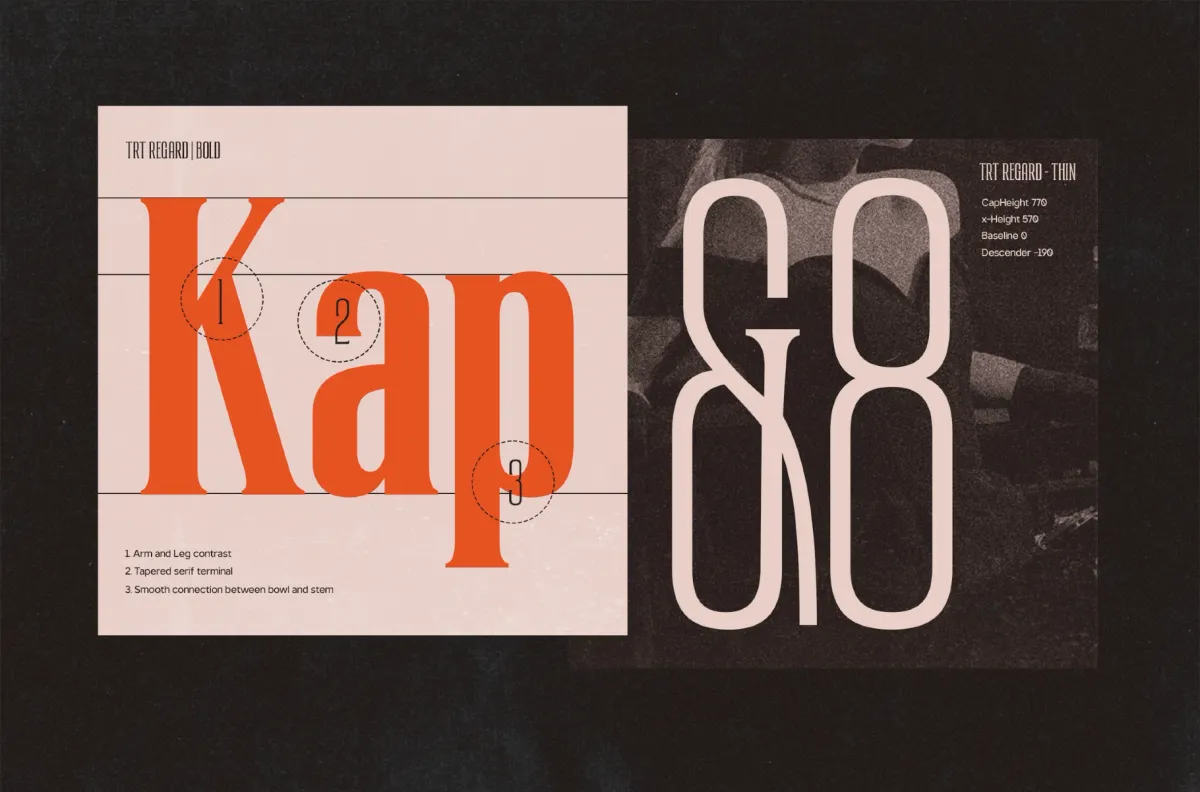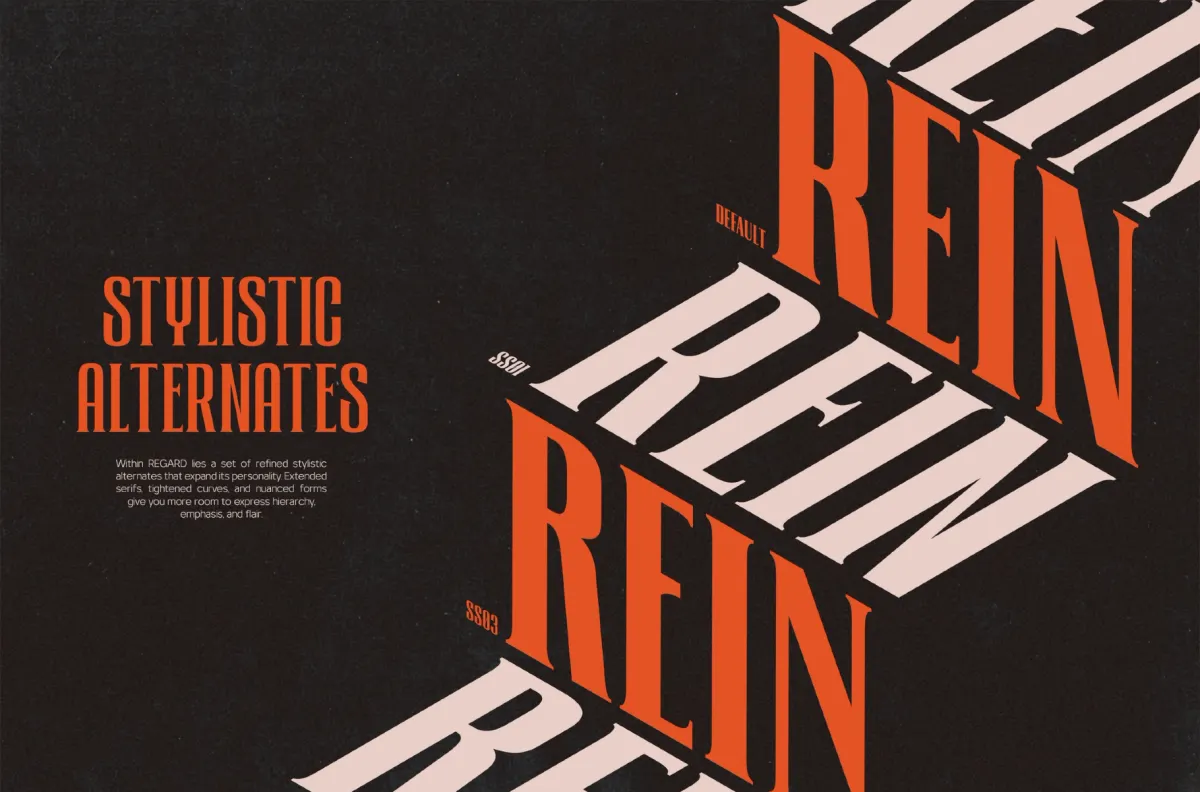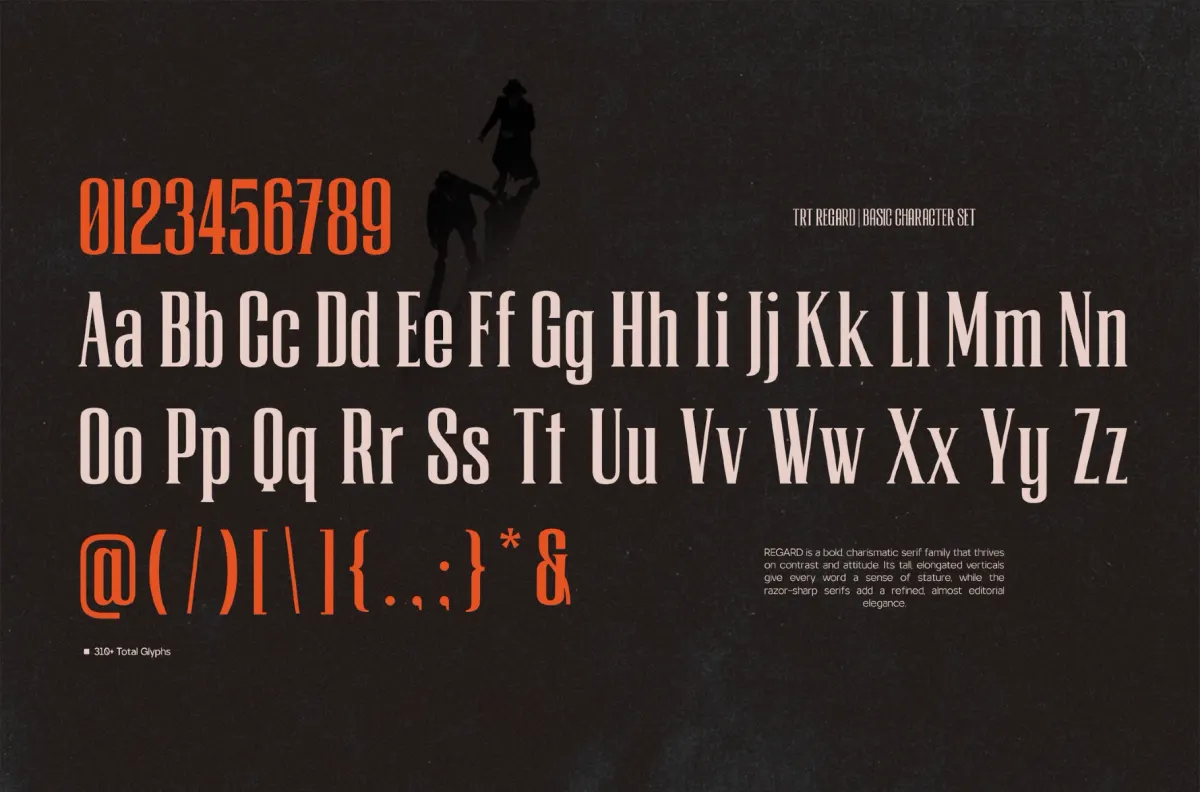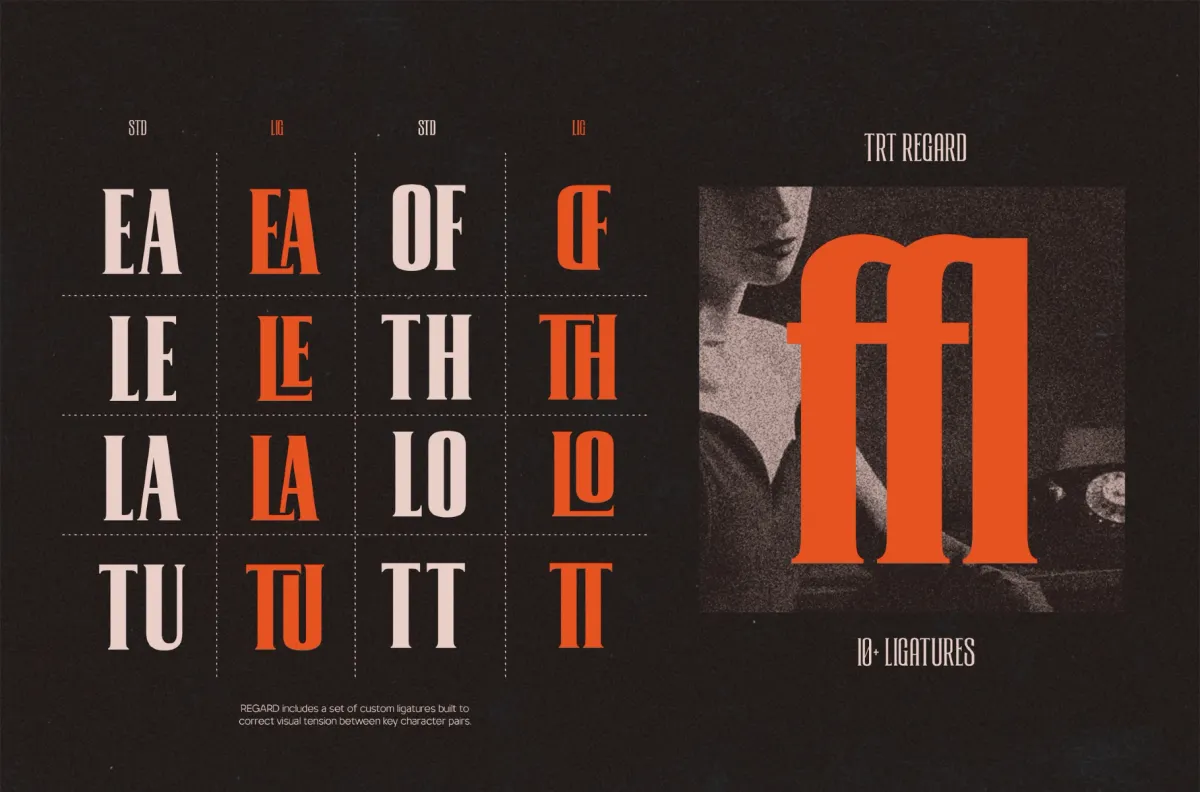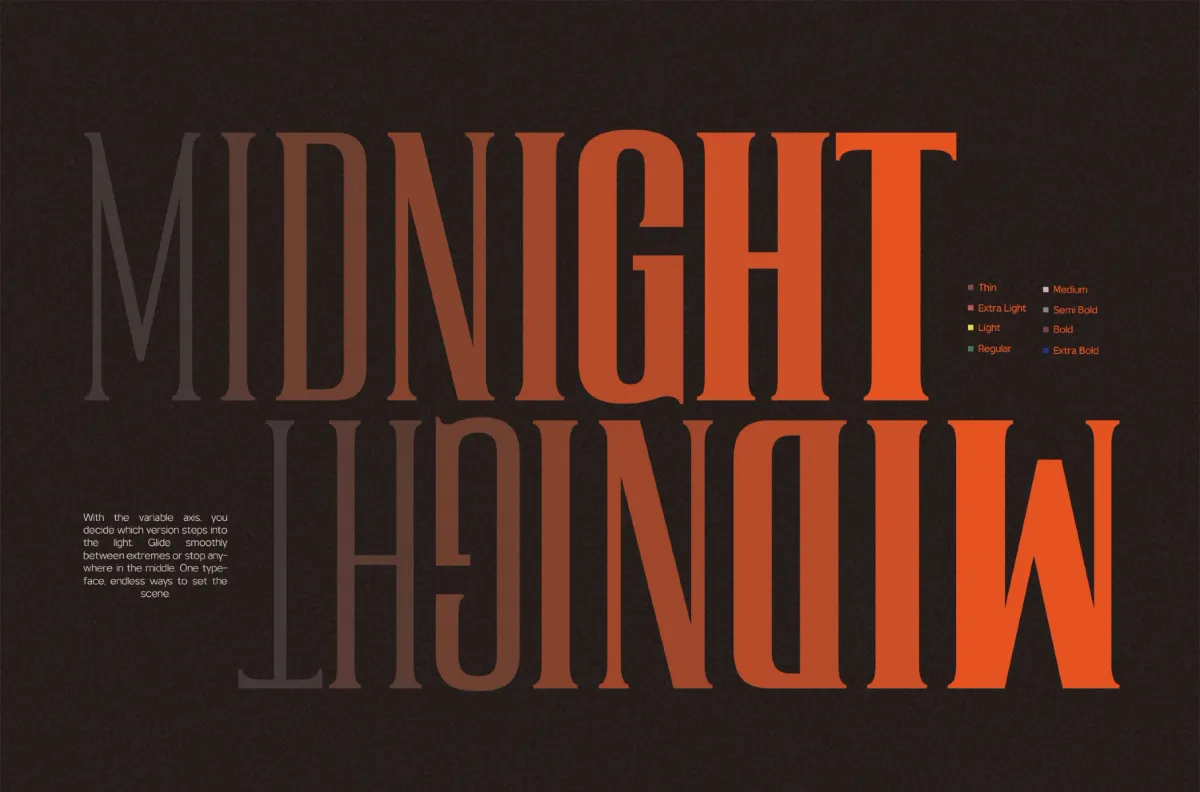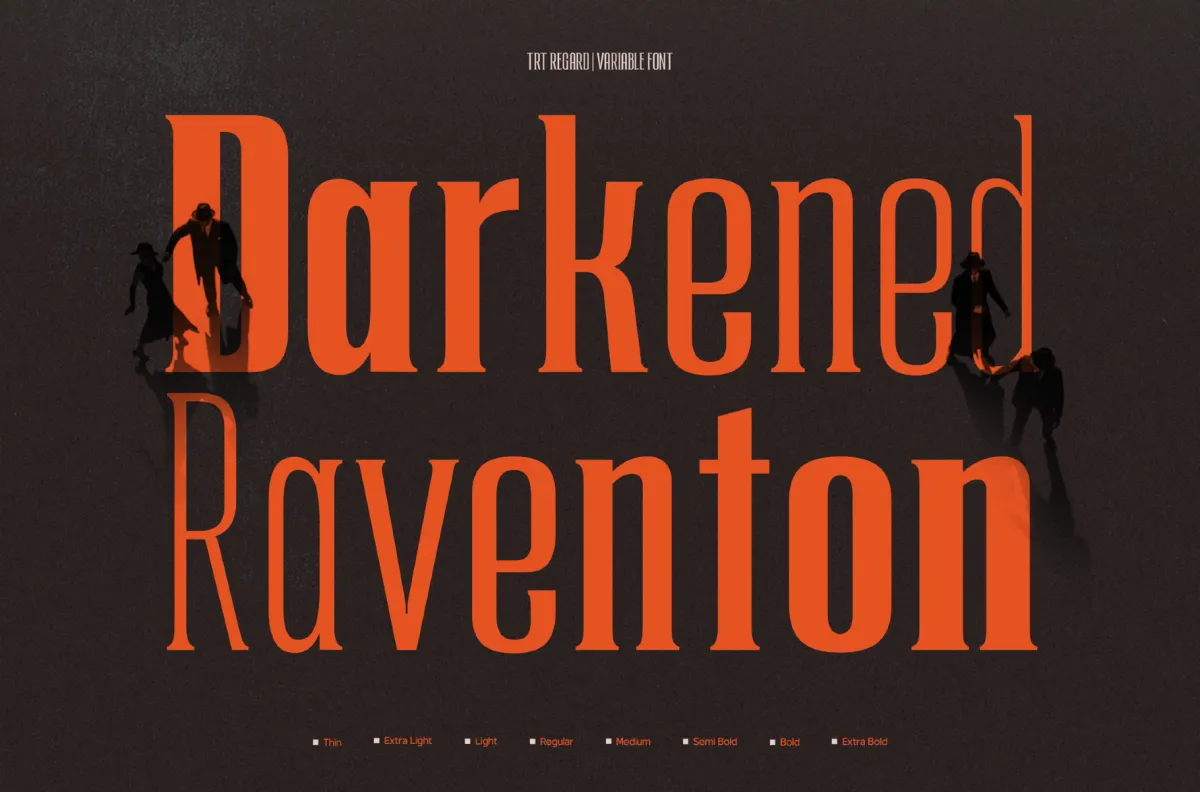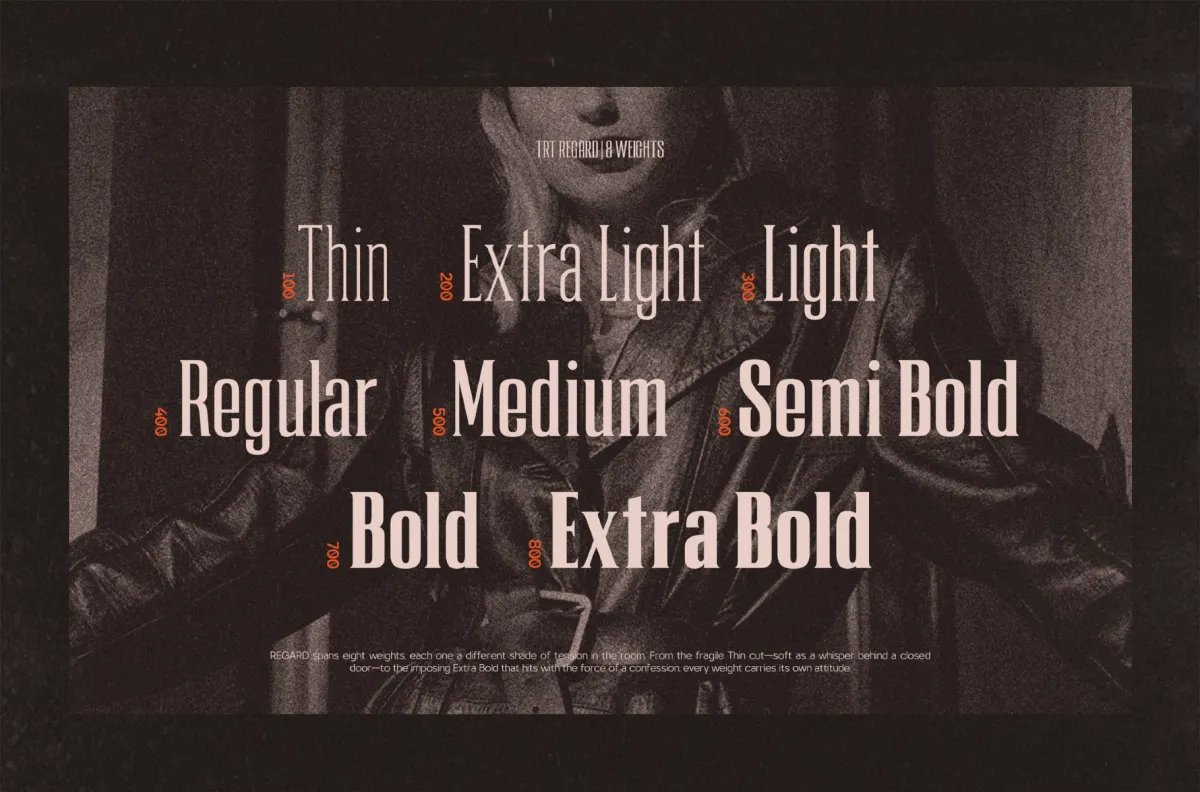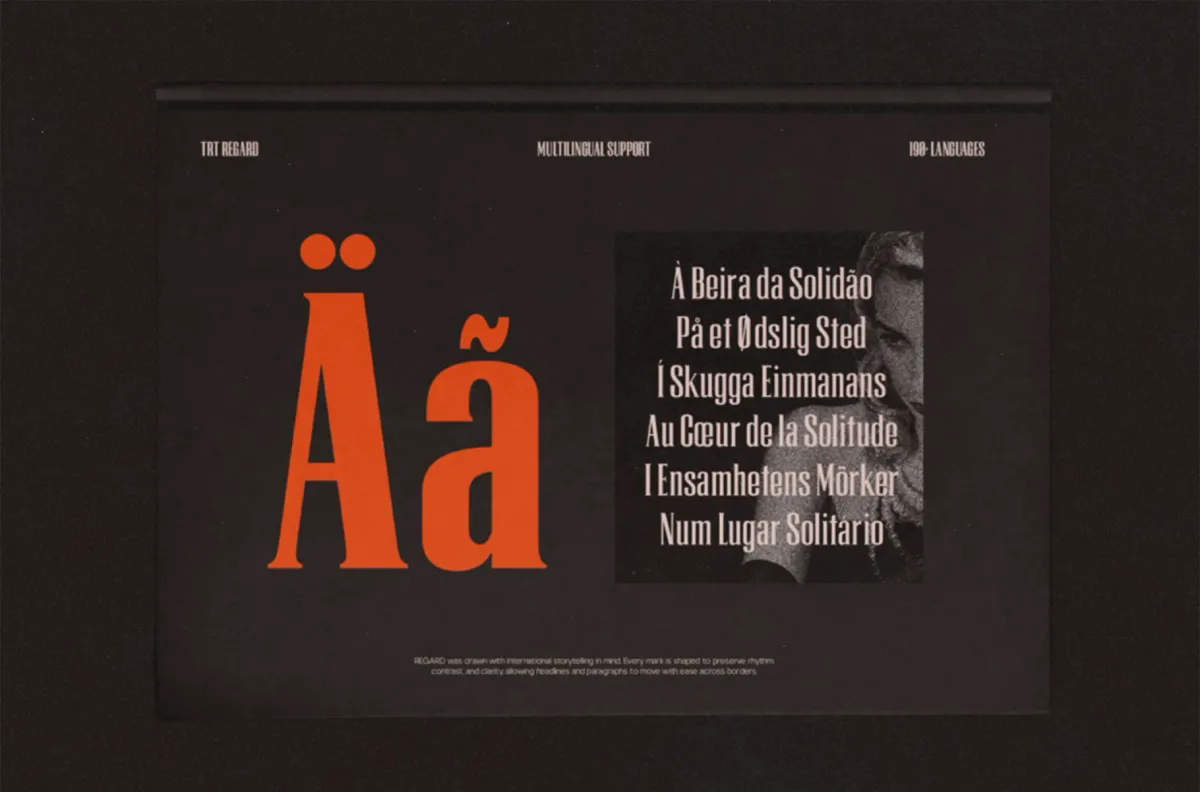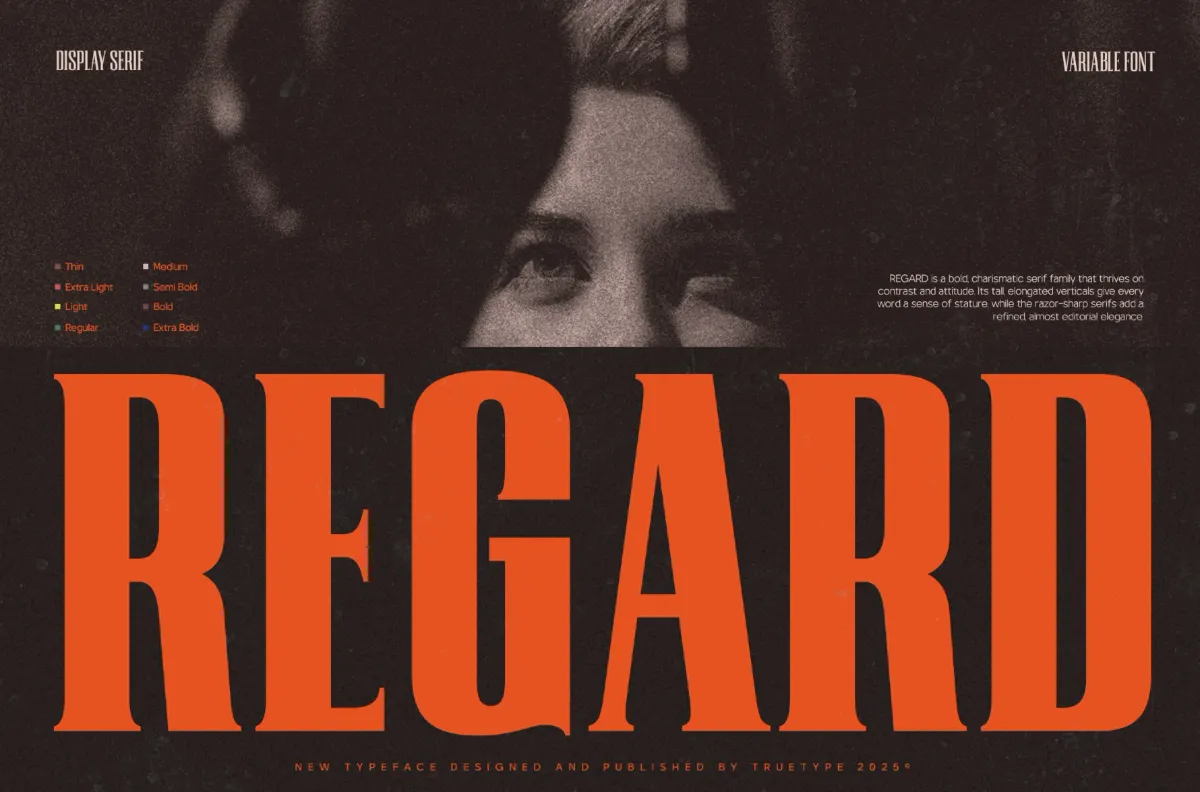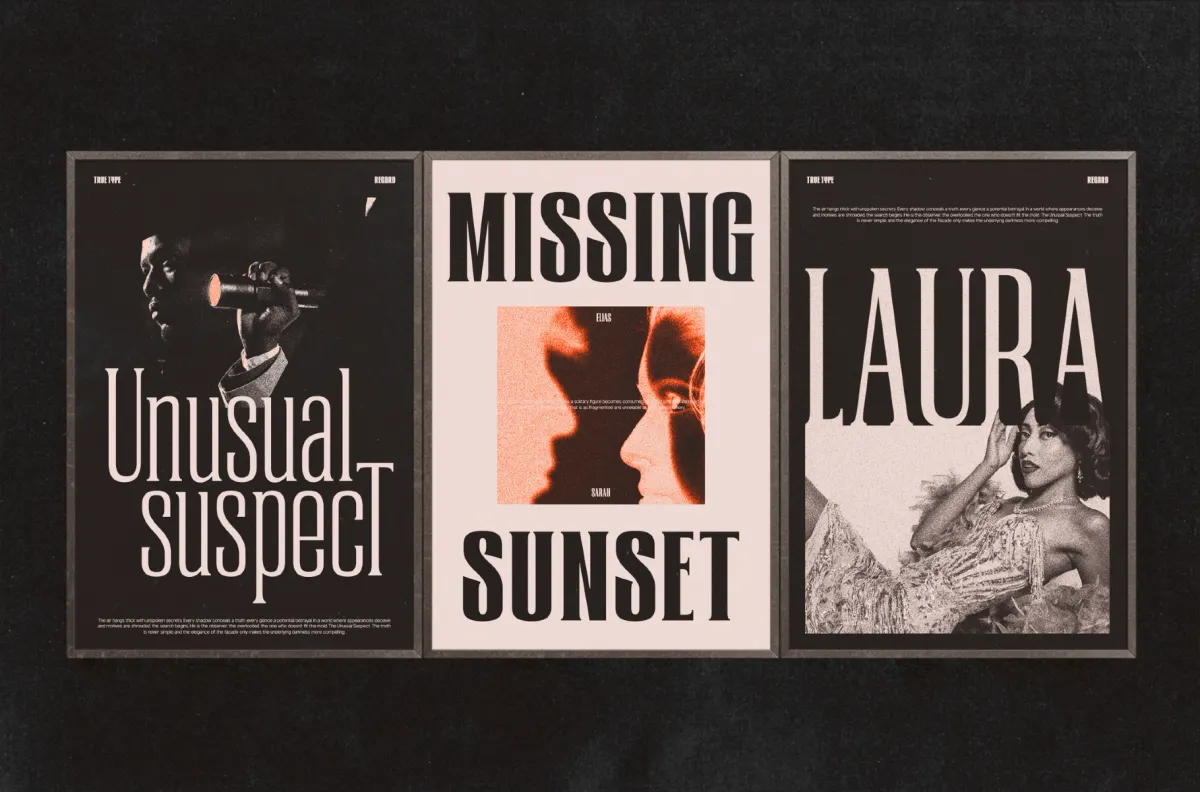
TRT Regard - Condensed Display Font
TRT Regard channels old noir case files — grainy contact-sheet photography, shadowed profiles, a typed film-credit roll — into a tall condensed serif built for that same hard-boiled tension. Razor-sharp serif terminals and a steep stroke contrast give the capitals a stiletto edge, while eight weights carry that attitude from a hairline Thin through a dense Extra Bold. Custom ligatures, stylistic alternates, fractions, and ordinals sit ready underneath for editorial headlines, poster and title work, fashion and music branding, and packaging that needs a sharper edge.
• 8 styles: Thin, Extra Light, Light, Regular, Medium, Semi Bold, Bold, Extra Bold;
• Uppercase & Lowercase;
• Numerals, punctuation & symbols;
• Ligatures, stylistic alternates, fractions, ordinals;
• 318 glyphs per style